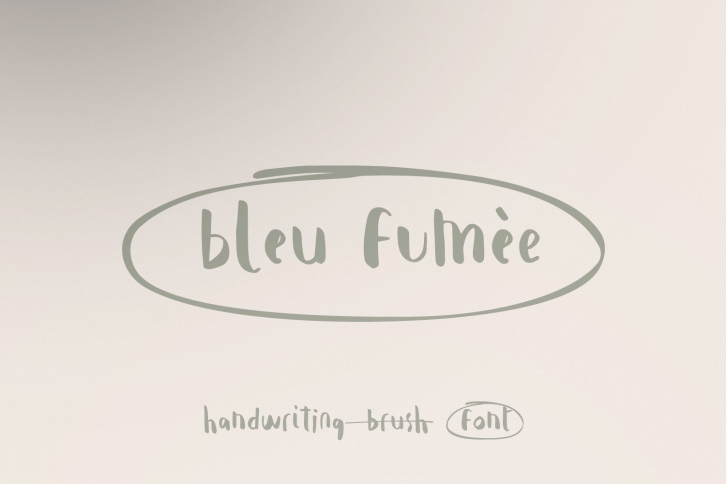
Bleu Fumèe is a simple, natural and cool looking handwritten font. It can easily be matched to an incredibly large set of projects, so add it to your creative ideas and notice how it makes them stand out!